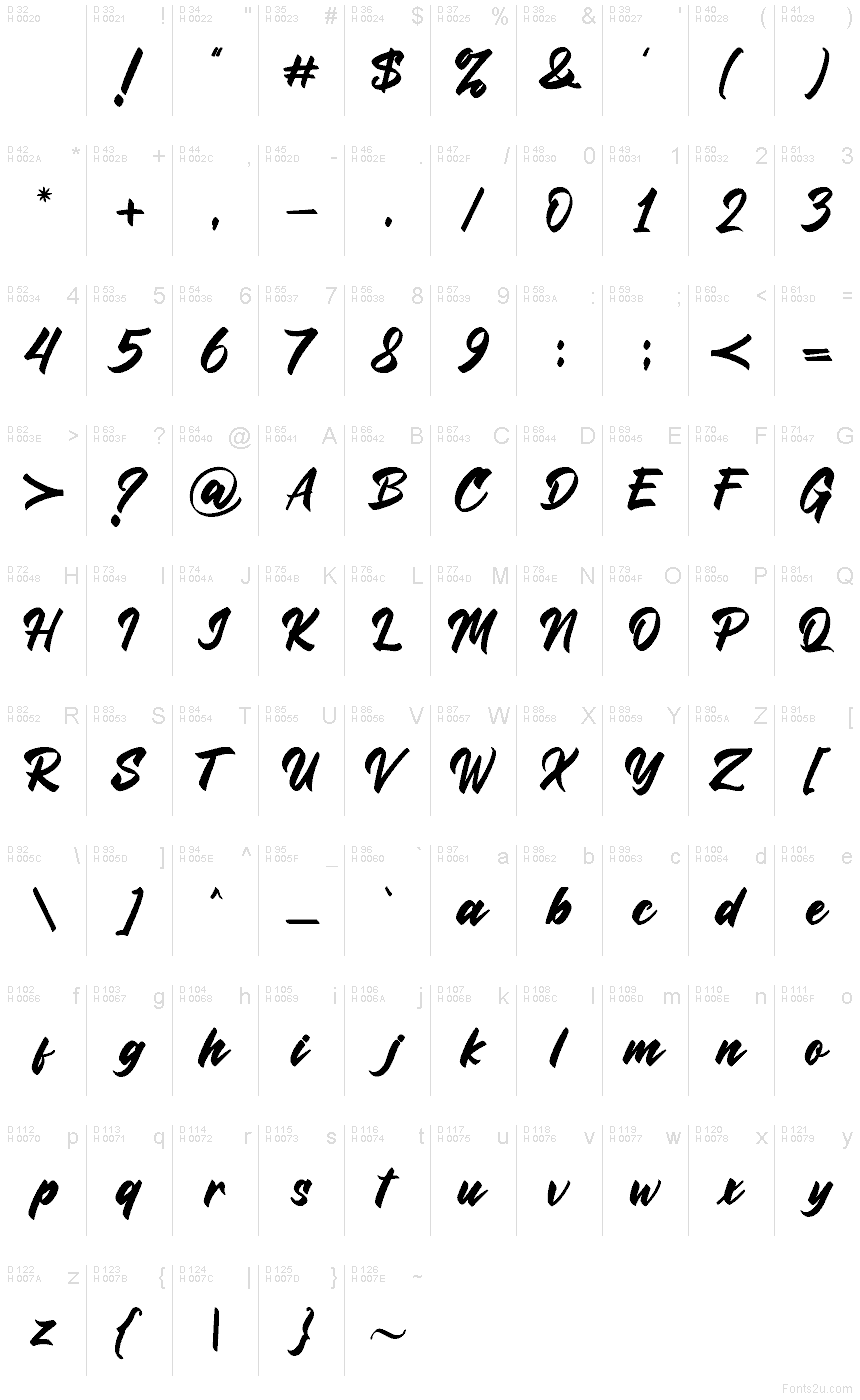
King Rimba
King Rimba font by Basni.std is a bold brush font that captures the essence of sleek, modern design. Its expressive and energetic flow delivers a contemporary script style that is both captivating and versatile. This all-in-one solution transforms ordinary ideas into remarkable designs that shine with elegance.
The free display typeface is perfect for a variety of applications, including logos, branding projects, apparel graphics, packaging, digital advertisements, social media posts, magazine covers, titles, headlines, subheadings, page numbers, body text, laurels, glyphs, signatures, and monograms.